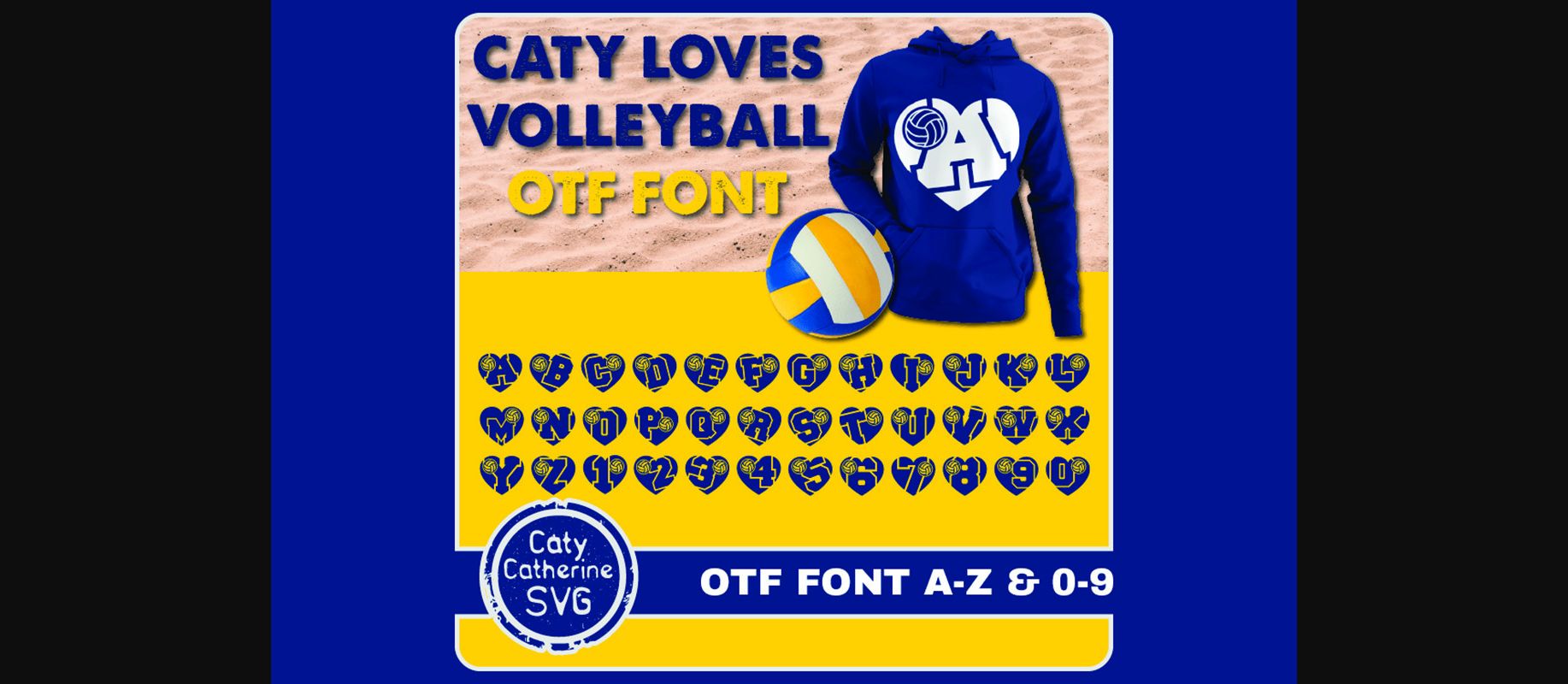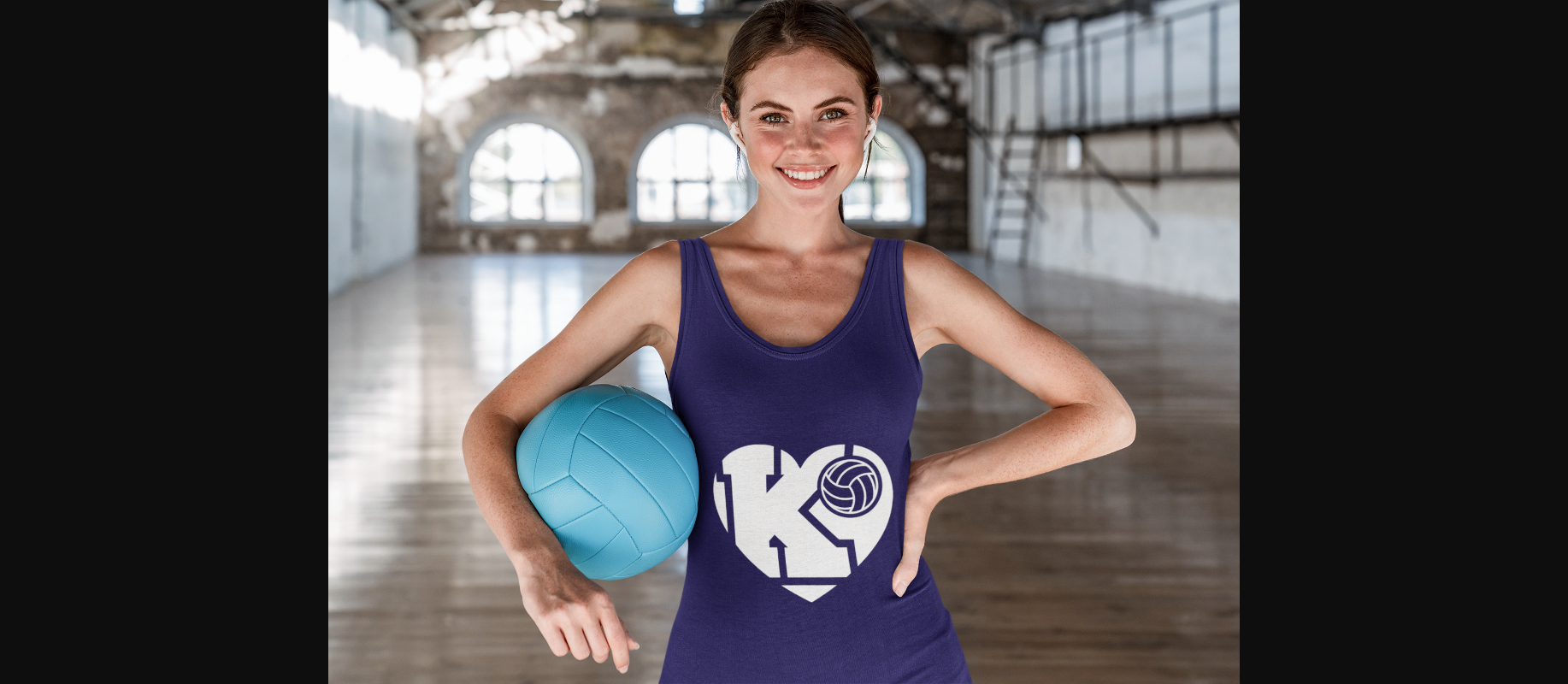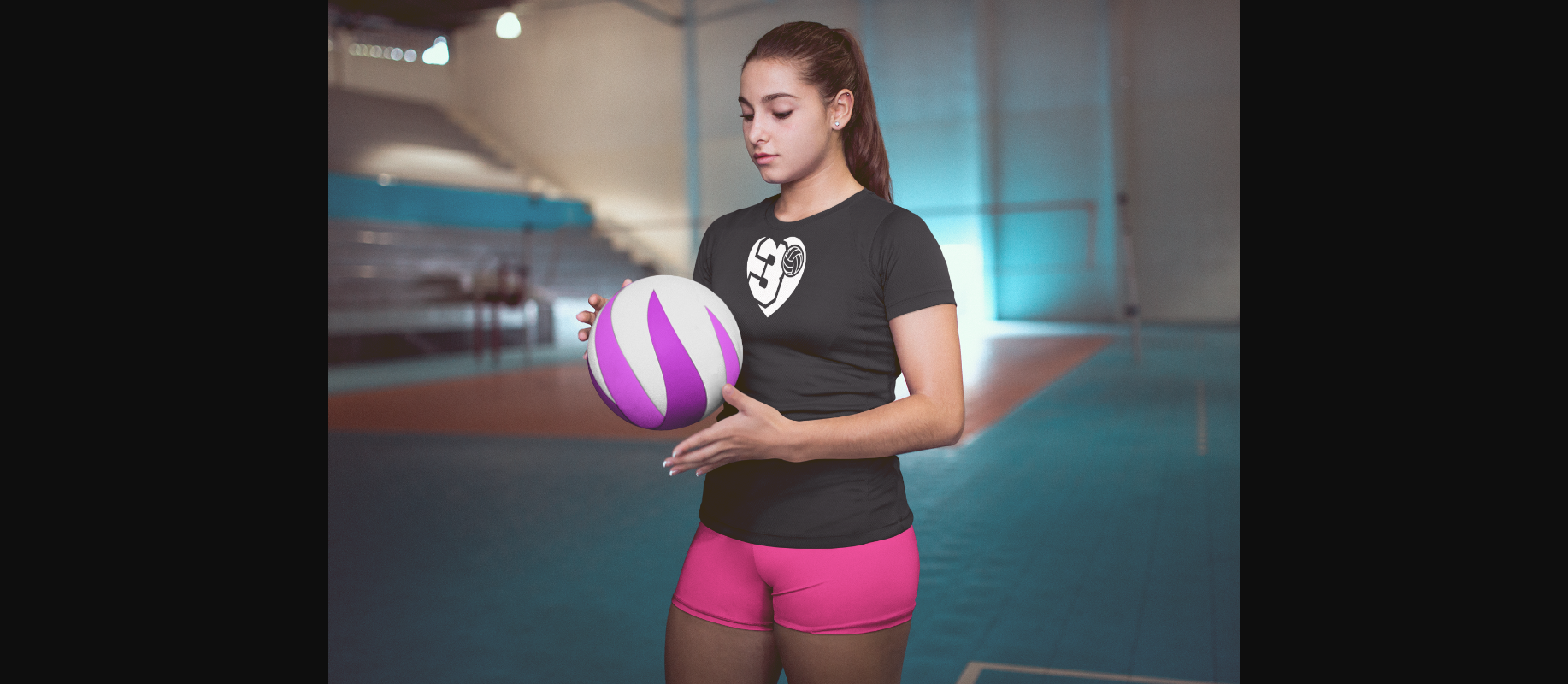
Caty Loves Volleyball Font
About Caty Loves Volleyball Font
Caty Loves Volleyball is a unique and sporty looking decorative font. It will look stunning on any poster, flyer or print.